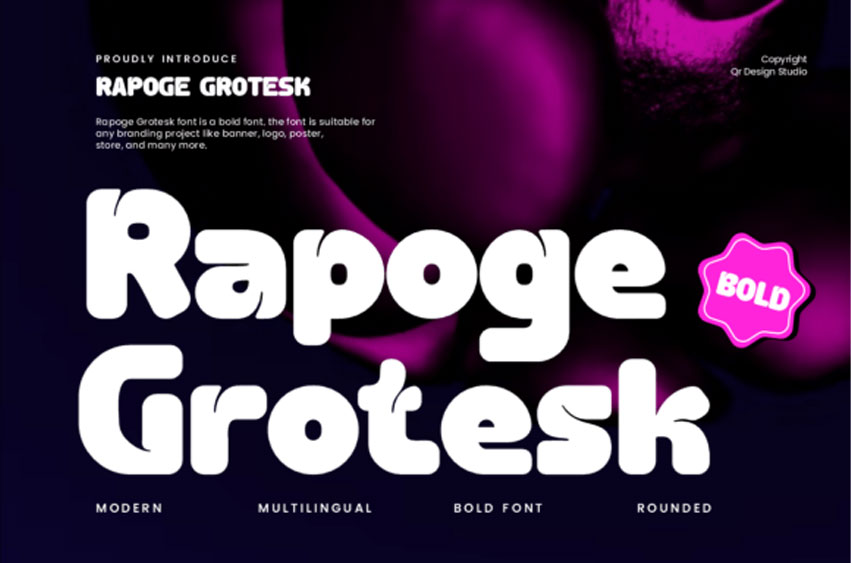
Rapoge Grotesk Font is a sans-serif display font. Rapoge Grotesk delivers a bold, modern statement with its smooth, rounded letterforms and confident geometric structure.
Designed with perfect balance between playful curves and clean lines, it exudes a contemporary vibe that’s ideal for logos, posters, banners, packaging, and striking digital visuals. Its bold weight and generous proportions make it highly legible while maintaining a distinctive personality that commands attention.
Perfect for branding and creative campaigns, Rapoge Grotesk adapts seamlessly to a variety of styles, bringing both strength and style to every design project.